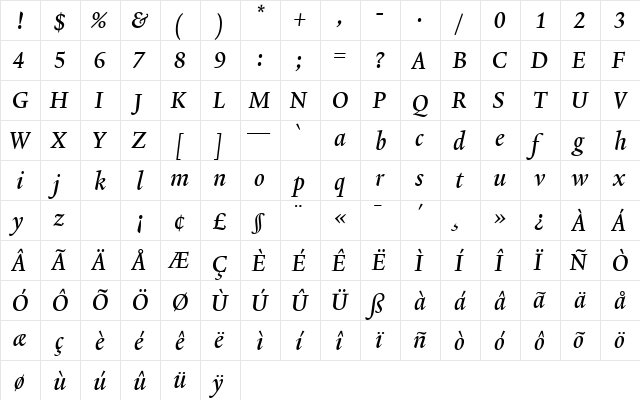
Lexicon No2 Italic B Tab
Design Context for Lexicon No2 Typeface
Lexicon No2 is a composed and adaptable typeface that performs quietly and consistently across a wide range of design contexts. Its italic angle brings a sense of urgency and motion to the letterforms.
Pro Tip: Use Lexicon No2 for emphasis, pull quotes, and subheadings where its slanted energy can add rhythm to the layout.